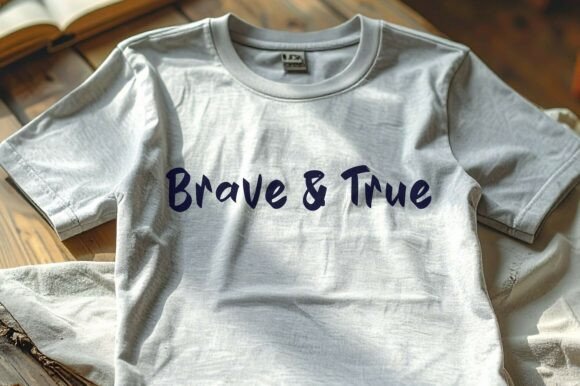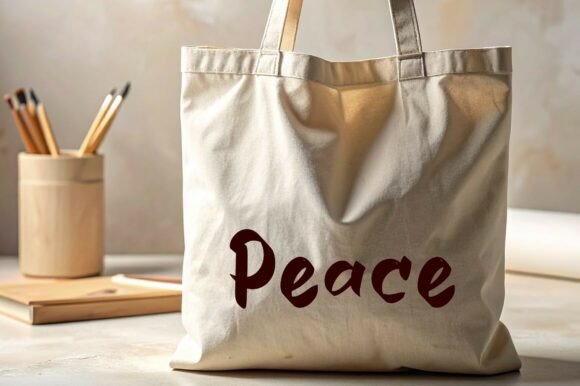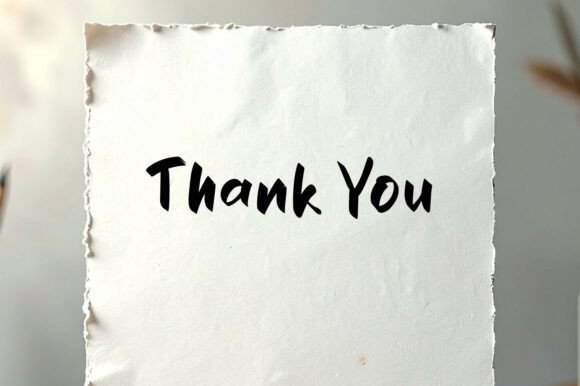
The Bapak Polisi Font: A Handcrafted Gem for Creative Projects
I still remember the design project that led me to discover the Bapak Polisi font. I was working on a branding project for a local artisan, and I needed a font that would convey a sense of warmth, approachability, and authenticity. As I scrolled through font libraries, I stumbled upon Bapak Polisi, and it instantly caught my eye. The bold, organic script typeface seemed to leap off the screen, exuding a sense of confidence and personality.
A Personal Connection
What sets Bapak Polisi apart is its distinctly handcrafted feel; each character appears to be penned with a confident, fluid motion, creating an authentic and personal connection with the viewer. The varying pressure in the strokes, from the thick, assertive downstrokes to the more dynamic upstrokes, adds a sense of energetic movement and personality.
Honest Review
Here’s what I love about Bapak Polisi:
- ✨ Unique and authentic look: The font’s handcrafted feel makes it stand out from more generic fonts.
- ✅ High legibility: Despite its artistic flair, Bapak Polisi is surprisingly easy to read.
- ✅ Versatility: This font would be perfect for a wide range of projects, from artisanal product packaging to social media graphics.
- ✅ Emotional connection: Bapak Polisi has a way of creating a personal connection with the viewer, making it ideal for projects that require a human touch.
And here are some minor quirks to consider:
- ⚠️ Limited use in formal contexts: Bapak Polisi’s informal, handcrafted feel might not be suitable for very formal or corporate projects.
- 🤔 Glyph coverage: While the font includes a range of characters, it might not have extensive language support or special characters.
The story behind Bapak Polisi is one of creative passion and experimentation. The font’s designer was inspired by traditional handwriting and lettering techniques, seeking to create a font that would capture the essence of human connection and personality. Through countless hours of refinement and iteration, Bapak Polisi was born – a font that embodies the warmth, approachability, and authenticity of handcrafted design.
| Font Name | Bapak Polisi Font |
| Author | wep – Wahyu Eka Prasetya |
| What makes Bapak Polisi unique? | The font’s handcrafted feel, bold strokes, and energetic movement make it stand out from more generic fonts. |
| Is Bapak Polisi suitable for formal projects? | While Bapak Polisi is a versatile font, its informal feel might not be suitable for very formal or corporate projects. |
| Does Bapak Polisi include language support? | Bapak Polisi includes a range of characters, but its language support might be limited compared to more extensive font libraries. |